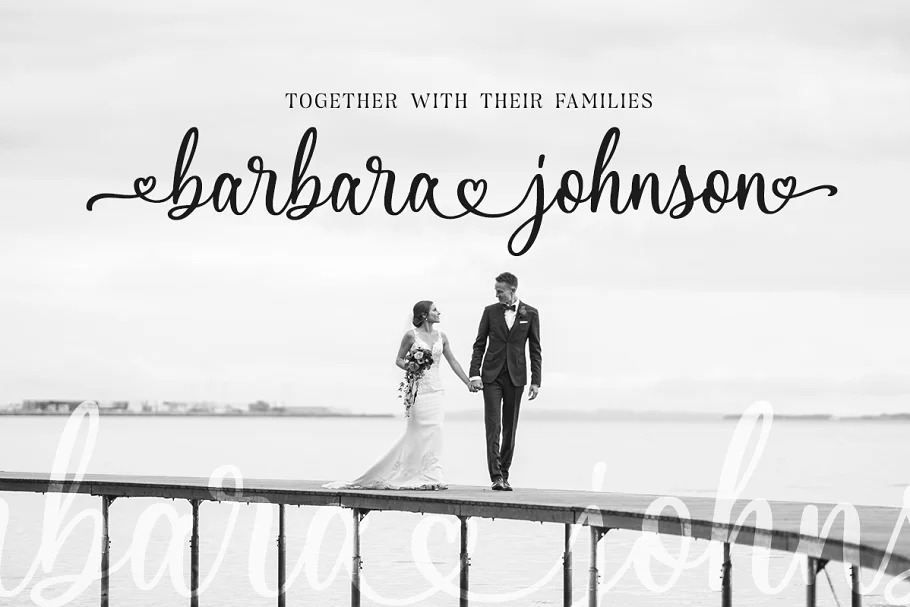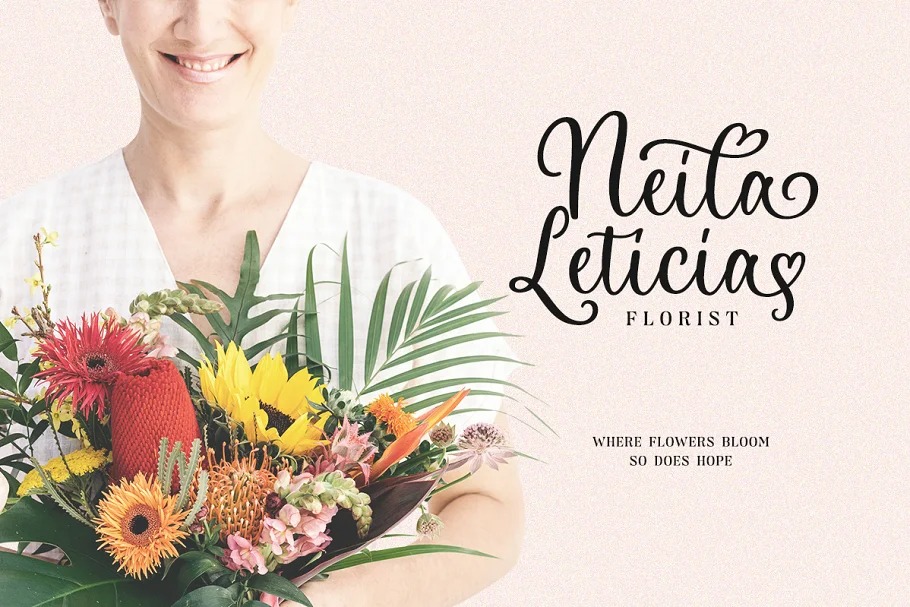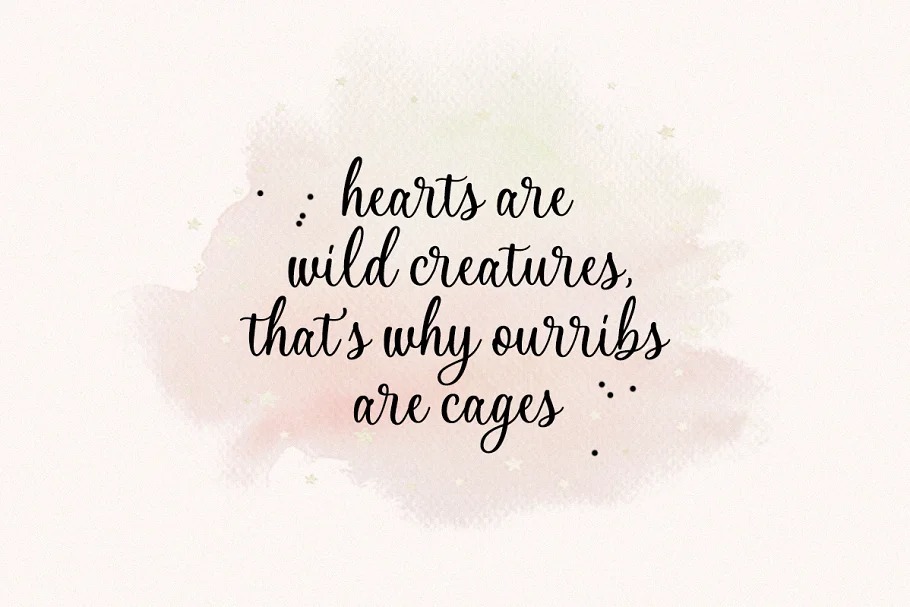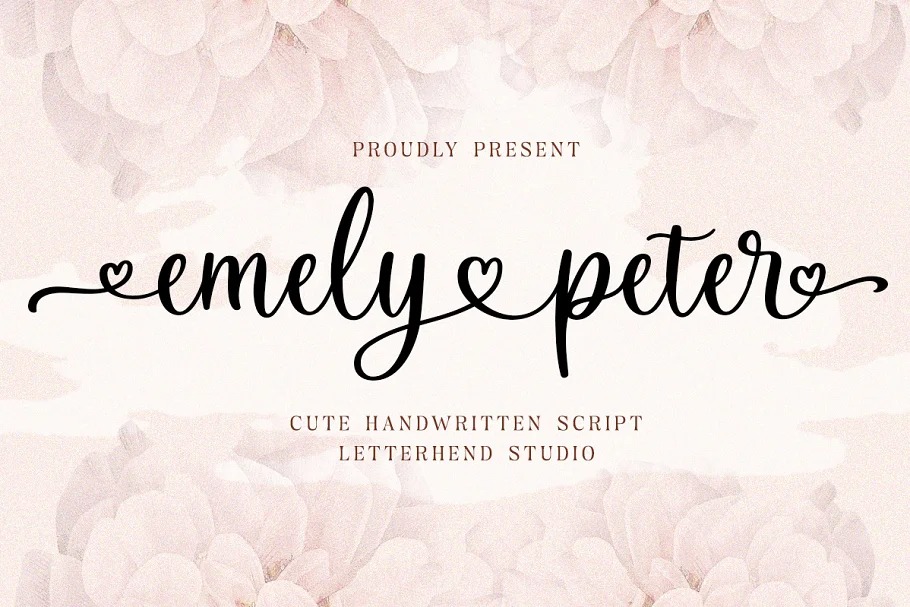
Emely and Peter Font
Emely and Peter Calligraphy Font is a handcrafted script, that gives a feel of lovely font type. It’s designed and shared by Letterhend Studio. The swashes and love ornaments makes this font looks suitable for romance, wedding, feminine theme. This type of font also perfectly made to be applied especially in logo, and the other various formal forms such as invitations, labels, logos, magazines, books, greeting / wedding cards, packaging, fashion, make up, stationery, novels, labels or any type of advertising purpose.